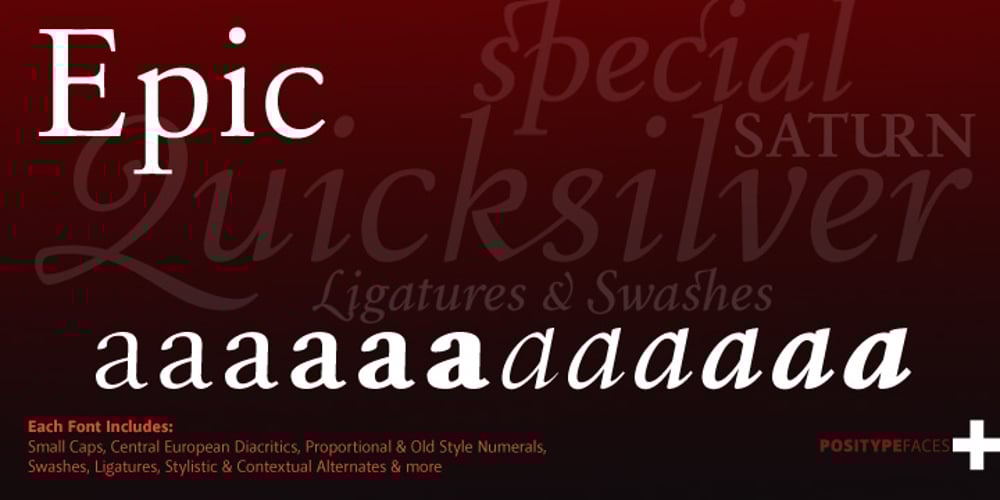
Epic Font Family was designed by published by Positype. Epic contains 12 styles and family package options. What started out as a typographic exercise to produce the TypeTrust logotype turned out to be the product of obsession. Epic is the culmination of two years of work that has yielded a versatile and respectful contemporary garalde. With a full complement of six weights and true italics, the family offers itself as a true workhorse. Numerous standard and discretionary ligatures, majuscule ligatures, stylistic alternates and swash characters ensure visual interest as an effective headline face.